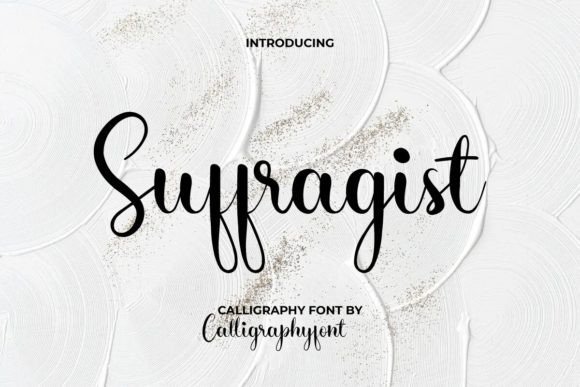
Step into a world of artistic expression with Suffragist Font, a calligraphy masterpiece that captures the elegance of handwritten scripts. This casual script boasts an intricate design, each letter dancing across the page with fluidity and grace. Dive into the beauty of Suffragist Font, a script that speaks to the heart and soul, evoking emotions and creating a lasting impact.
With Suffragist Font, your creative projects will reach new heights of sophistication. Whether you're designing brand logos, crafting brochures, creating business cards, or sending out invitations, Suffragist Font adds a touch of timeless charm to every project. Its versatility extends to labels, quotes, signage, and stationery, making it the perfect choice for a wide range of applications.
Unleash your creativity and make a statement with Suffragist Font. Its intricate details and elegant flow bring a unique charm to your designs, capturing the attention of your audience and leaving a lasting impression. Whether you're a seasoned designer or just starting out, Suffragist Font is the perfect tool to elevate your work and make your projects stand out.
Embrace the artistry of Suffragist Font and embark on a creative journey like no other. Let your imagination soar as you explore the endless possibilities this beautiful script offers. From whimsical tattoos to heartfelt letters, Suffragist Font empowers you to express yourself in ways you never thought possible.
Immerse yourself in the world of Suffragist Font and experience the magic of handwritten artistry. With its timeless elegance and captivating charm, Suffragist Font is the key to unlocking your creative potential and leaving a lasting legacy through your designs.